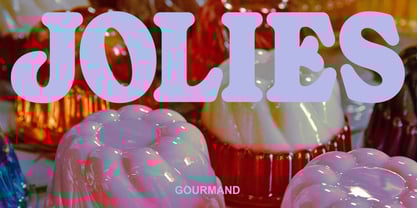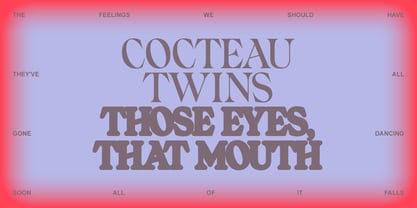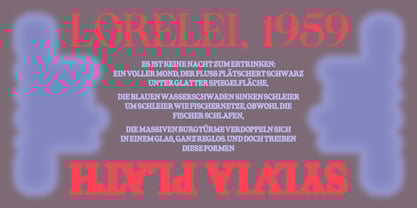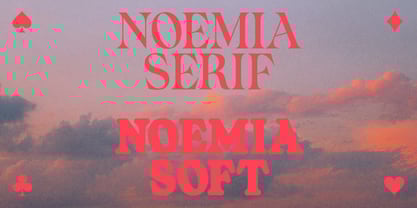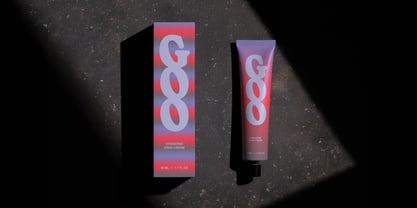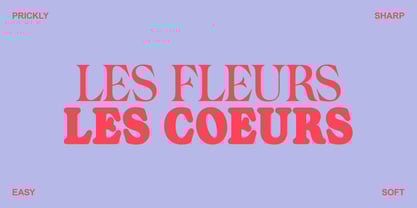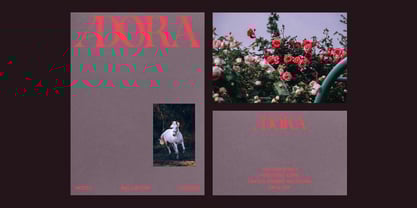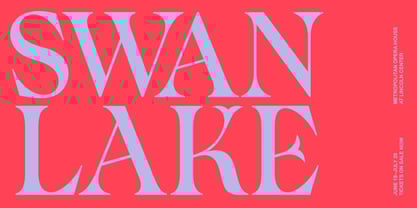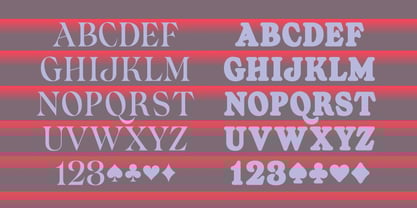
Noemia
by Valley Type
The Noemia Font Family was designed by Joanna Durkalec and published by Valley Type. Noemia contains 2 styles and family package options. More about this family
Noemia is a rococo fever dream. Available in Serif and Soft, it offers two contrasting display styles.
Noemia Serif is high-contrast, elegant and sharp. Designed with a distinct back tilt, it leans away from tradition. Details like split terminals in the stylistic alternates for E, F, and K resemble an opening blossom, or a snake's tongue.
Noemia Soft is thick and dreamy. Its letterforms share the same structure as Noemia Serif, but here they are pillowy, with split terminals that look much more like hearts.
Each style stands on its own. Together, they create dramatic contrast—siren and saint, thorn and petal.
Noemia features all uppercase characters with punctuation, glyphs, diacritics, numerals, and multilingual support. OpenType features include stylistic alternates and 42 custom ligatures.